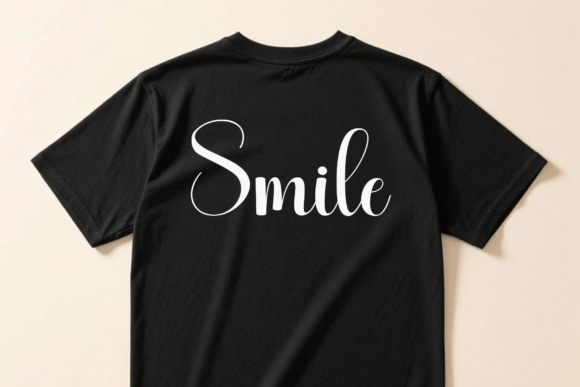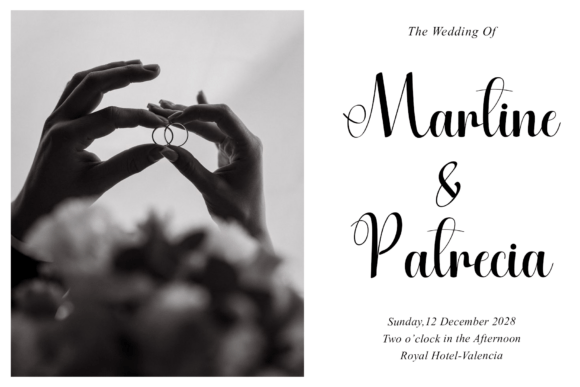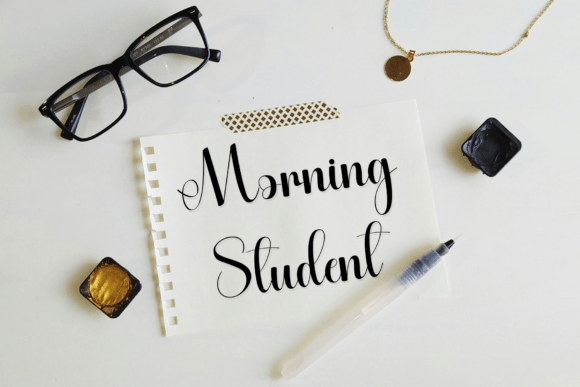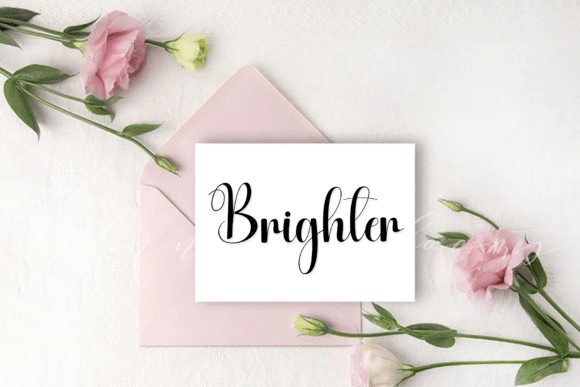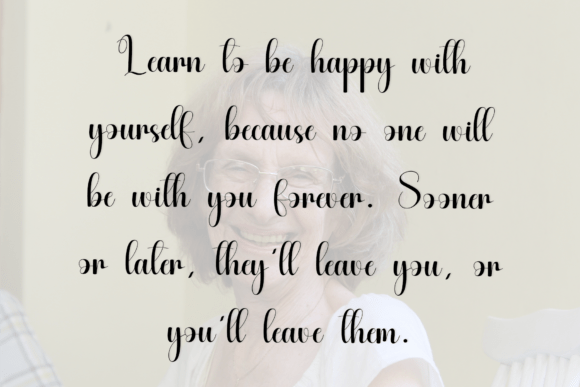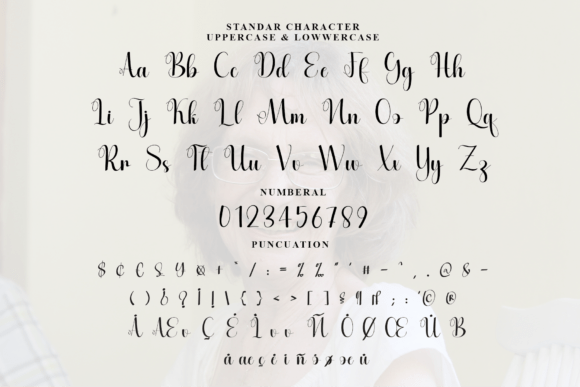
Introducing Grandma Font: Elevate Your Designs with Elegance and Sophistication
In the world of typography, few fonts manage to convey the perfect blend of elegance, sophistication, and fluidity. Grandma Font is one such exceptional typeface that brings a touch of refined, hand-penned charm to modern creative projects. Designed to mimic the gentle flow of ink on paper, Grandma Font is a beautiful script font that is sure to elevate your designs, whether you’re a designer, craftsperson, or simply a DIY enthusiast.
The Characteristics of Grandma Font
Grandma Font boasts a range of distinctive features that set it apart from other script fonts. Its vertically elongated letterforms, rendered with a fine, monolinear stroke weight, give the font a sense of fluidity and movement. The smooth character joins and rhythmic visual flourishes add to the font’s elegance, creating a sense of customized artistry and professional visual flow.
A Closer Look at the Design
One of the standout features of Grandma Font is its tall, sweeping ascenders, which give the font a sense of grandeur and sophistication. The design is characterized by a sense of fluidity, with each letterform blending seamlessly into the next. This creates a beautiful, flowing effect that is perfect for a range of creative projects, from boutique brand identities to elegant lifestyle marketing.
Perfect for a Range of Creative Projects
Grandma Font is an incredibly versatile typeface that can be used in a wide range of creative projects. Its elegant, sophisticated design makes it perfect for:
• Boutique brand identities: Grandma Font is an excellent choice for boutique brands looking to create a unique, high-end visual identity. The font’s elegant design and fluidity make it perfect for logos, packaging, and marketing materials.
• Personal signature watermarks: Add a touch of elegance to your personal signature watermarks with Grandma Font. The font’s sophisticated design and fluidity make it perfect for creating beautiful, customized watermarks.
• Elegant lifestyle marketing: Grandma Font is an excellent choice for lifestyle brands looking to create a sense of luxury and sophistication. The font’s elegant design and fluidity make it perfect for marketing materials, social media headers, and more.
• Professional social media headers: Elevate your social media presence with Grandma Font. The font’s sophisticated design and fluidity make it perfect for creating professional, eye-catching social media headers.
Why Choose Grandma Font?
So why choose Grandma Font for your creative projects? Here are just a few reasons:
• Elegance and sophistication: Grandma Font is a truly elegant and sophisticated typeface that will elevate your designs and give them a sense of luxury and refinement.
• Fluidity and movement: The font’s fluid design and smooth character joins create a sense of movement and flow, making it perfect for creating beautiful, eye-catching designs.
• Versatility: Grandma Font is an incredibly versatile typeface that can be used in a wide range of creative projects, from boutique brand identities to elegant lifestyle marketing.
In conclusion, Grandma Font is an exceptional script font that brings a touch of elegance, sophistication, and fluidity to modern creative projects. Its distinctive design, characterized by tall, sweeping ascenders and rhythmic visual flourishes, makes it perfect for a range of creative projects, from boutique brand identities to elegant lifestyle marketing. Whether you’re a designer, craftsperson, or simply a DIY enthusiast, Grandma Font is an excellent choice for anyone looking to elevate their designs and create a sense of luxury and refinement.